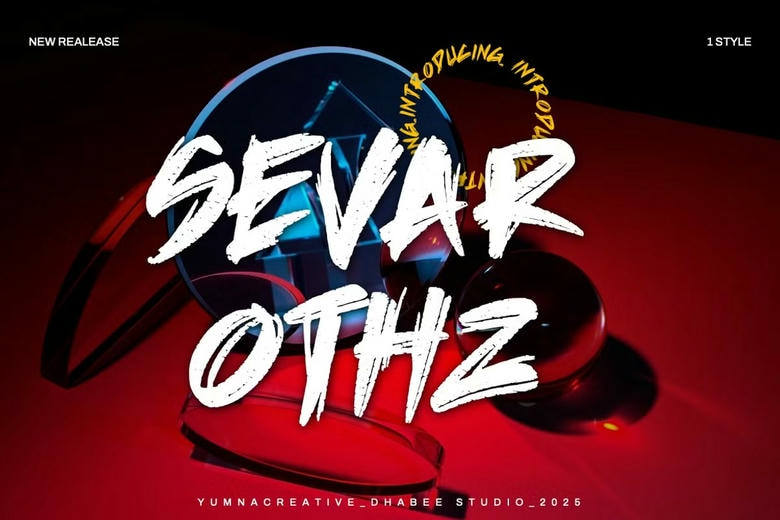
Sevarothz Font
Sevarothz is classified as an Urban Brush font. Its type of font is delicate, elegants script and flowy handwriting. It possesses beautiful as well as a special combination attached to the letter, so that the authors write it with a and little spiral inclusion, so that a modern font is created and set up to add an astonishing and distinct appeal to your next graphic design project.
Sevarothz Brush Font